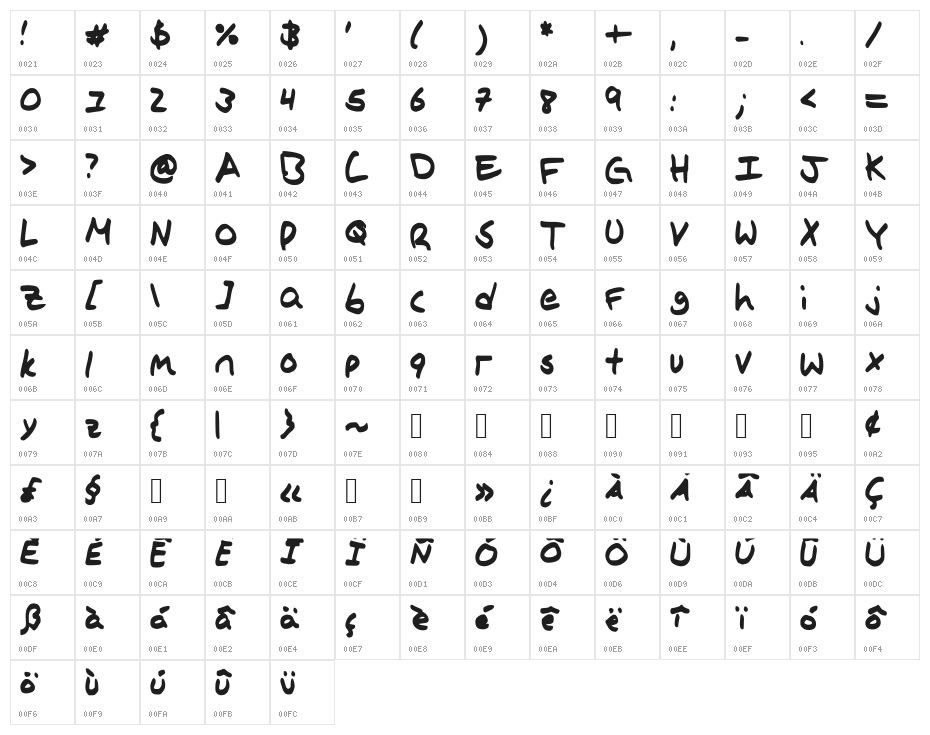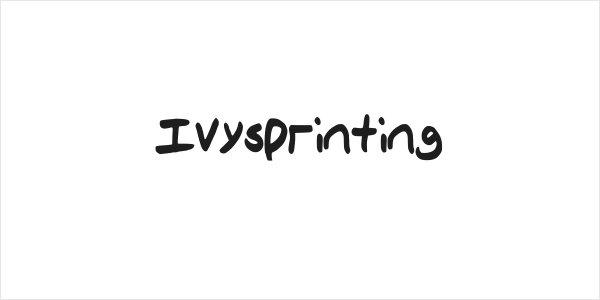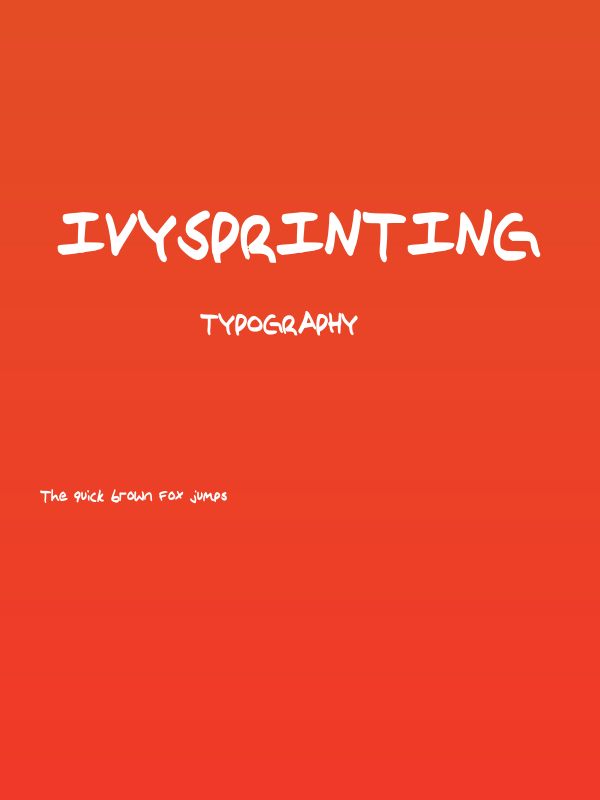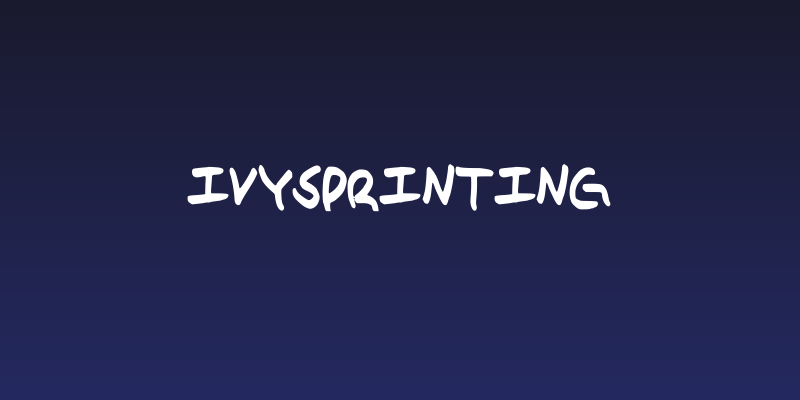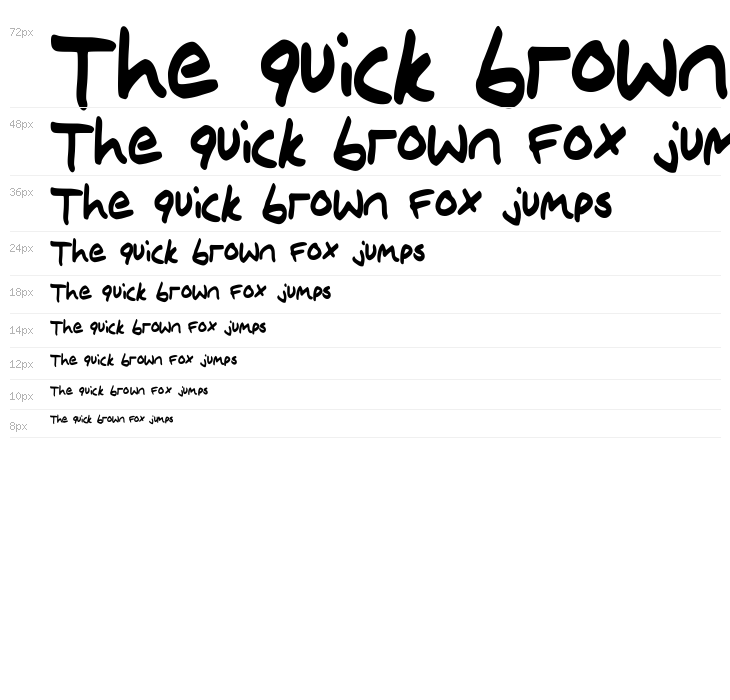
IvysPrinting Font
IvysPrinting Description
This font features a playful and bold handwritten style, characterized by its thick strokes and casual appearance. The letters are slightly irregular, giving it a personal and informal touch. The uppercase and lowercase letters maintain a consistent style, with rounded edges and a smooth flow. Numbers and special characters are equally bold, ensuring readability and a cohesive look across all characters. This font exudes a sense of creativity and spontaneity, making it ideal for projects that require a fun and approachable aesthetic.
| Proposed Projects | Ideal for children's books, playful branding, greeting cards, and informal event invitations. |